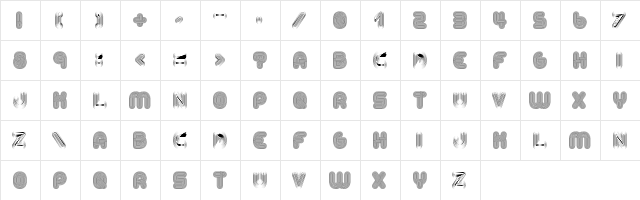
Alt Retro Regular Regular
| Foundry | Andreas Leonidou |
| Designer | Andreas Leonidou |
Design Context for Alt Retro Regular Typeface
Alt Retro Regular wears its vintage influences proudly, with letterforms that recall mid-century signage, classic packaging, and nostalgia-driven design.
Font Pairing: Combine Alt Retro Regular with a simple slab or neutral sans — period-accurate companions reinforce the vintage feel without competing for attention.
Pro Tip: Use Alt Retro Regular for headlines and pull quotes rather than body copy — its personality is best appreciated in short, focused bursts.